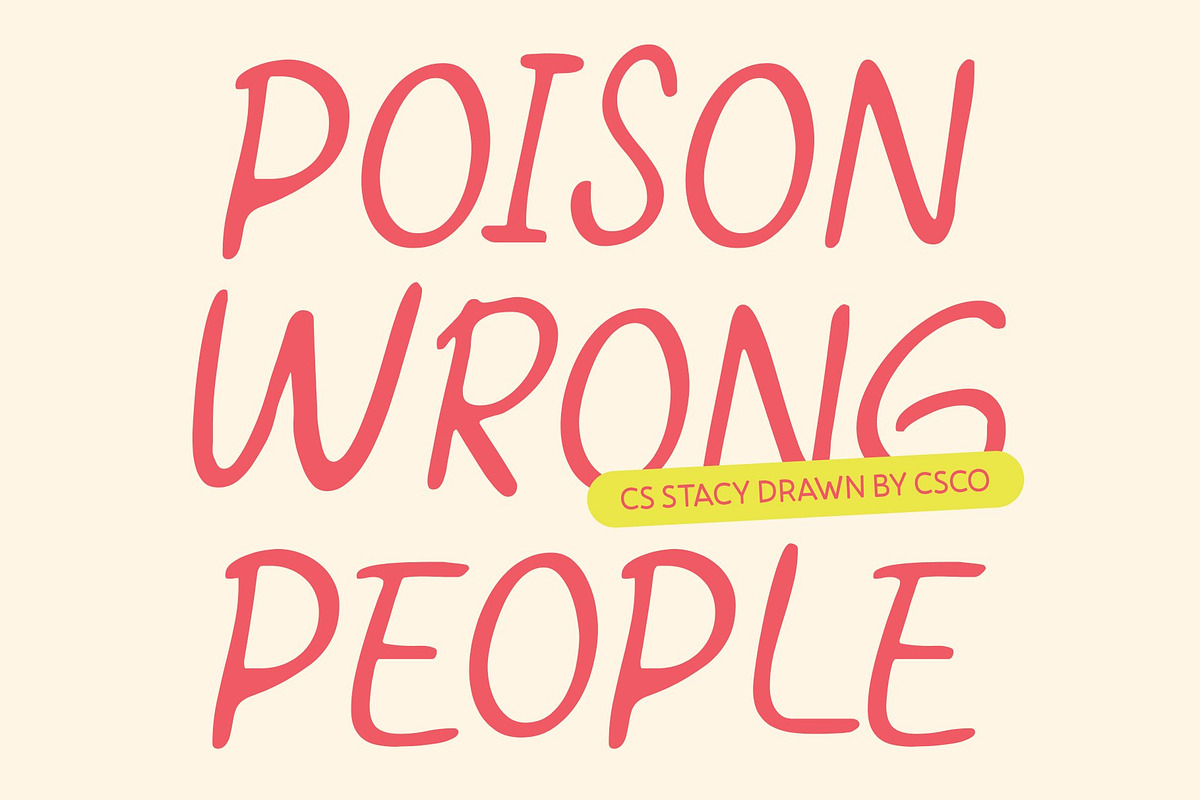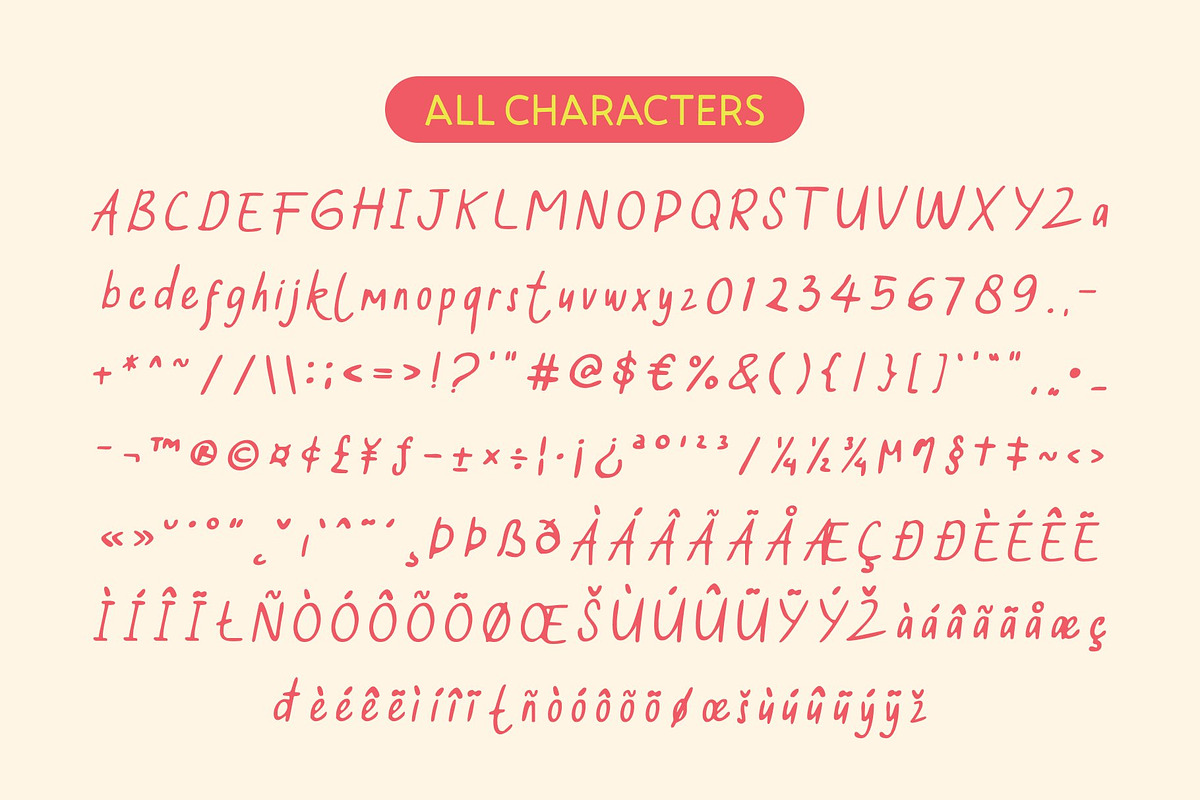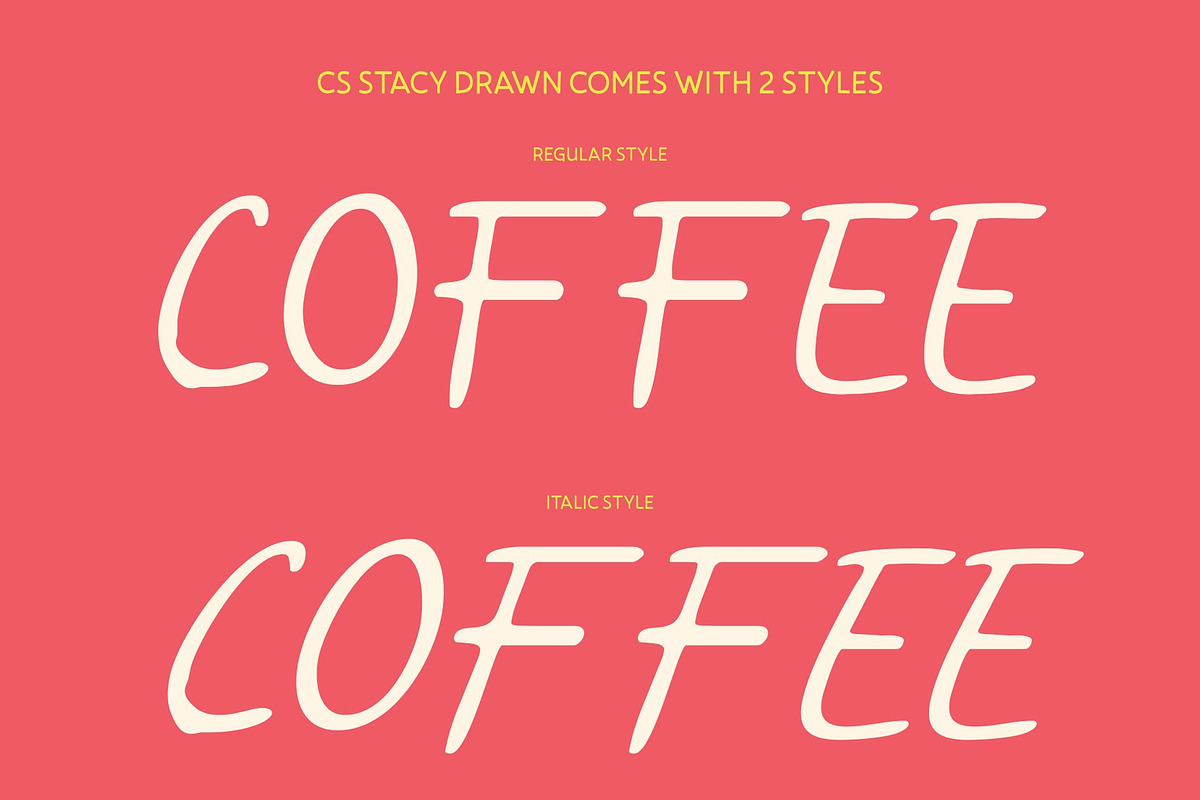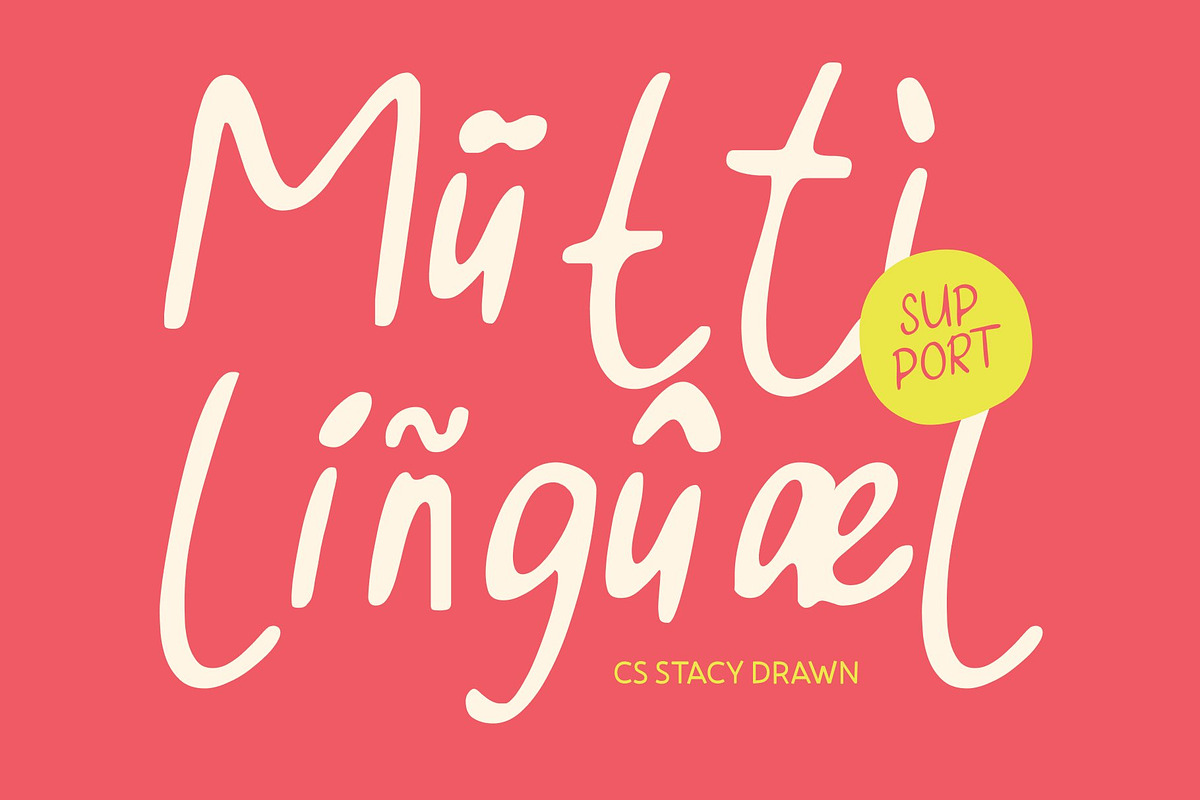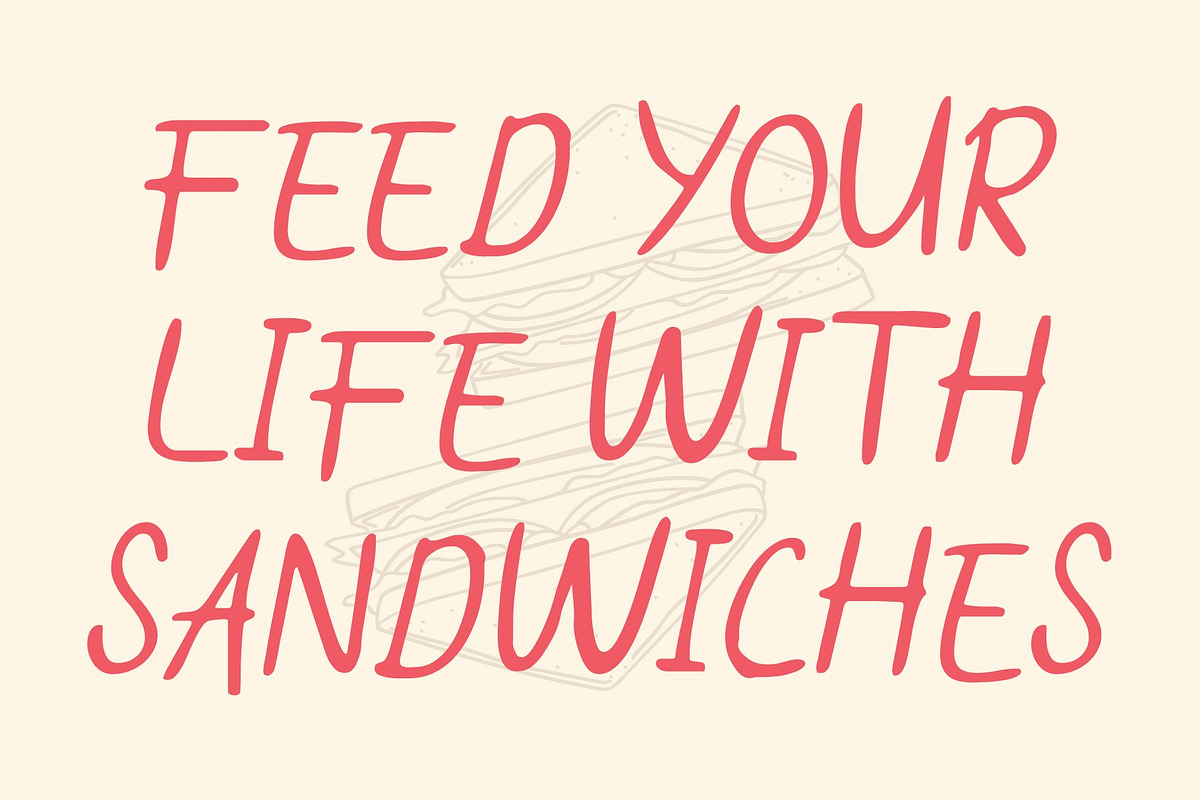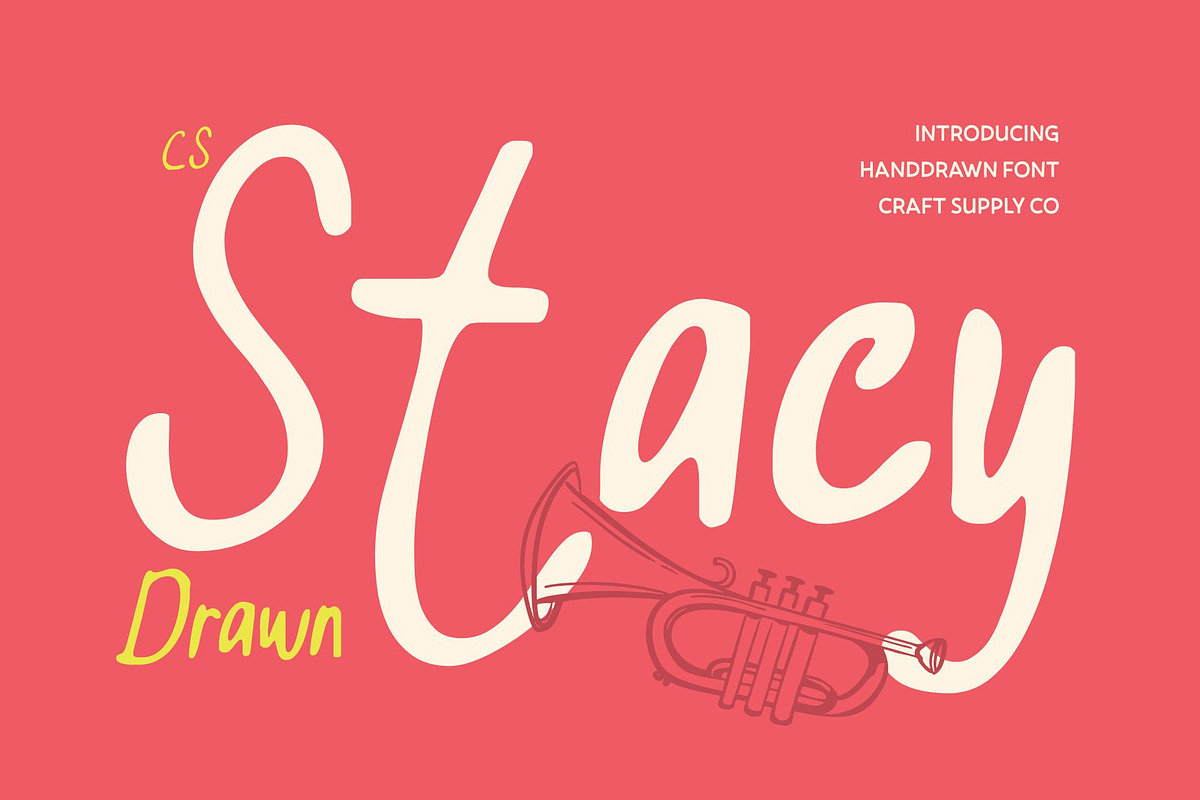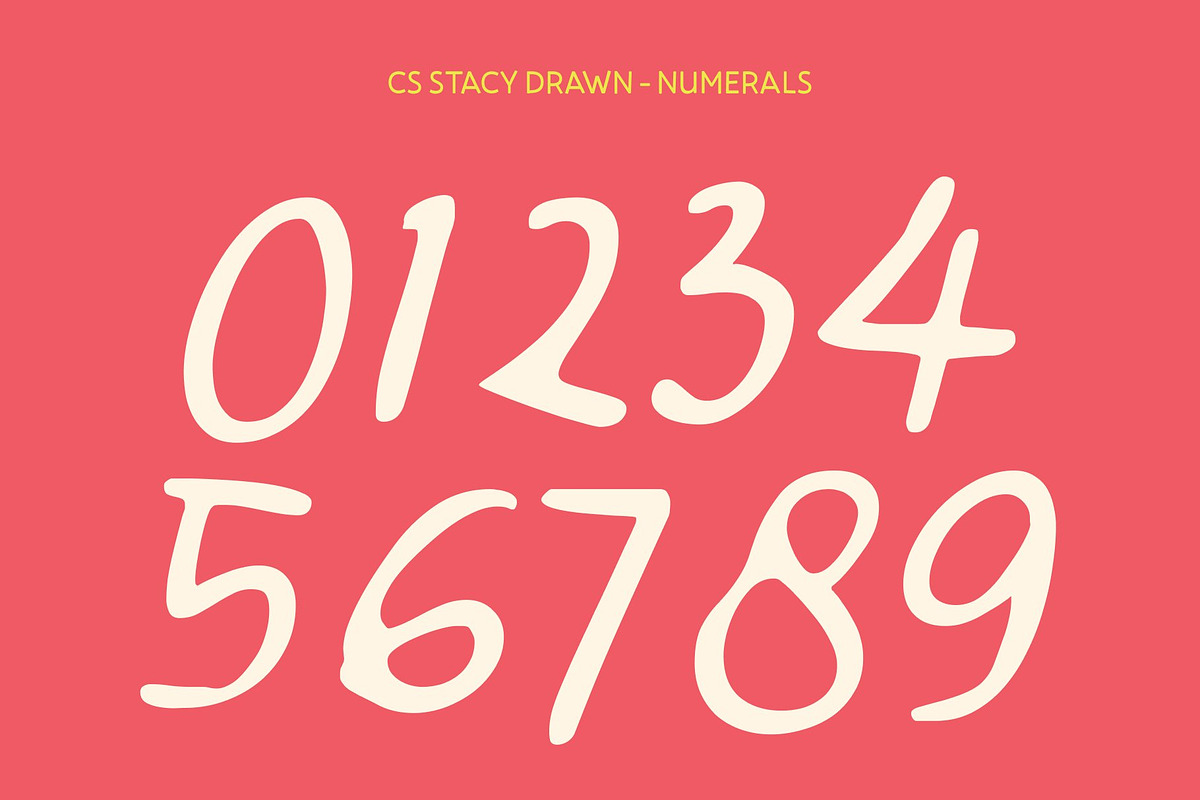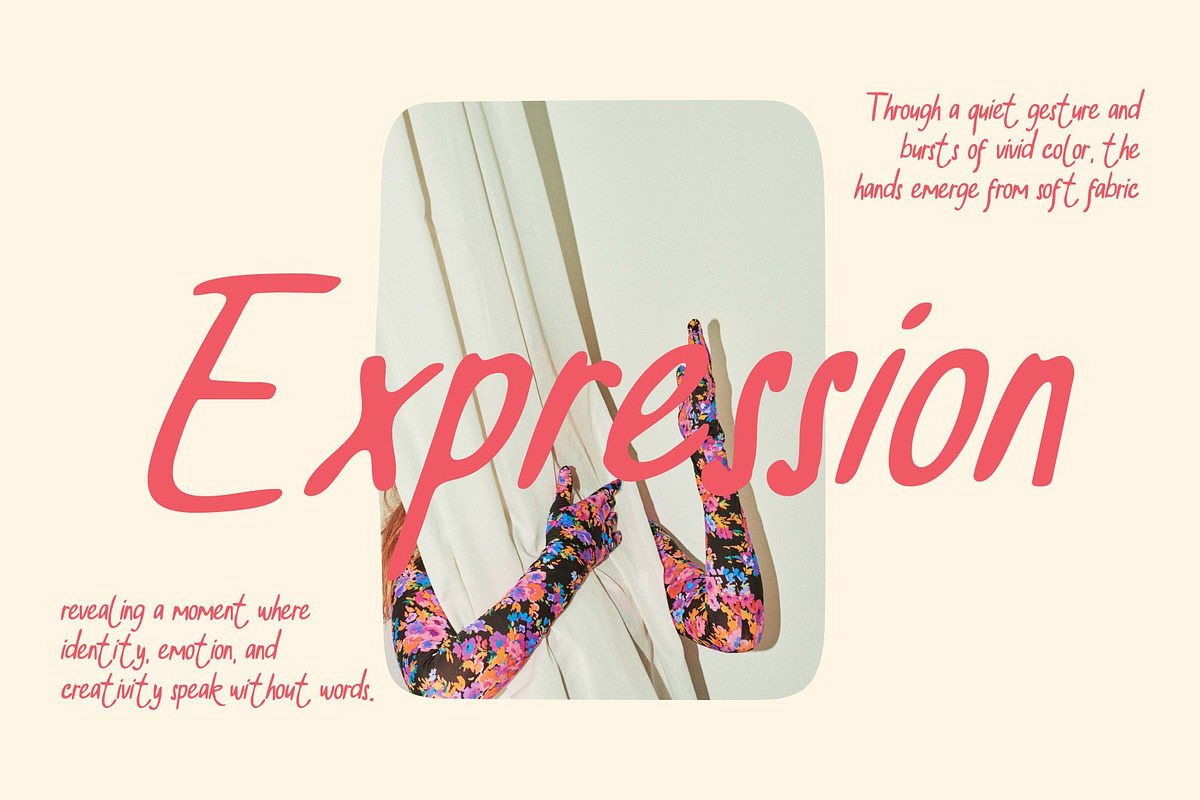
CS Stacy Drawn
CS Stacy Drawn – Hand-Drawn Font with Organic Character
Organic Hand-Drawn Style with Expressive Personality This is an organic hand-drawn font designed to capture the charm and authenticity of handmade lettering. Enhanced with a subtle drawn texture, each stroke feels lively, tactile, and full of personality. The natural imperfections and irregular edges give every letter a handcrafted warmth, making it ideal for designs that need character, approachability, and visual interest.
Unique Handmade Character for Creative Design With irregular strokes, playful curves, and lightly textured edges, this font stands out as a typeface brimming with creativity. Each character carries individuality and a sense of human touch, transforming ordinary text into an expressive visual element. The drawn texture emphasizes artistry, giving projects a handcrafted, bespoke quality.
Perfect for Labels, Posters, and Packaging This font excels in designs that benefit from a creative, artisanal feel. Ideal for product labels, packaging, posters, and branding, its organic flow ensures readability while adding charm and visual flair. Each word feels personal, distinctive, and handcrafted, perfect for projects seeking authenticity and warmth.
Ideal for Expressive and Artistic Projects Whether applied to editorial layouts, creative displays, or decorative branding, this font brings a playful yet professional handmade vibe. Its textured, organic style ensures every design feels unique, expressive, and visually memorable, making it the go-to choice for hand-crafted typography.